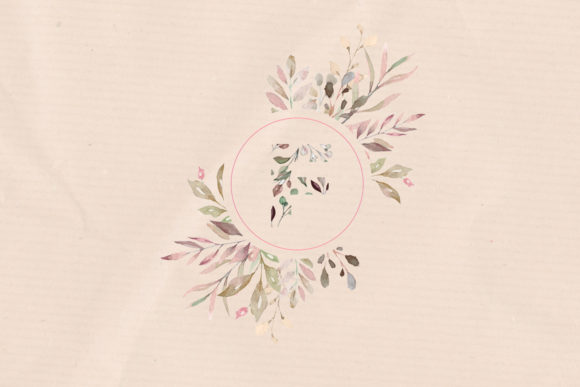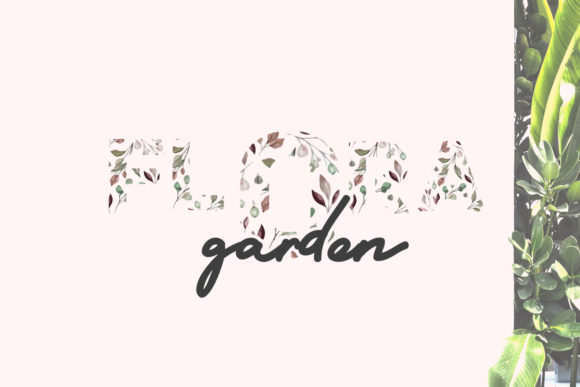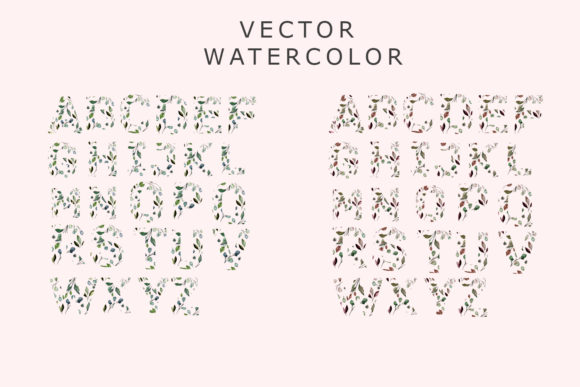
Introduction to Flora Duo Font
Flora is an amazing font duo that is inspired by the beauty of nature.
Fall in love with its organic charm .
Flora Duo Font offers exceptional quality and versatility, making it a valuable addition to your design toolkit. Whether you’re creating for personal projects or commercial use, Flora Duo Font delivers professional results.